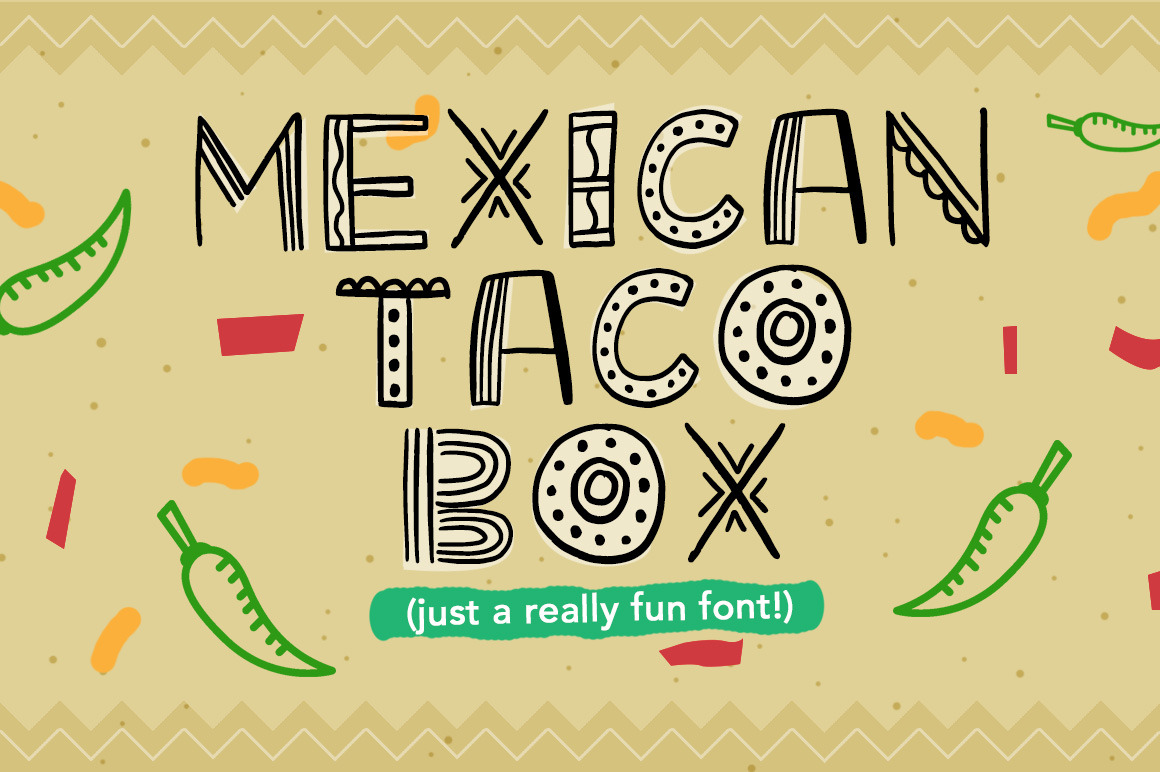
Mexican Taco Box Font
Mexican Taco Box just oozes with flavor and spice-- a fun, loud, and eccentric font that's perfect for adding that heat to your design projects: posters, magazines, food recipes, party invitations, and all other things that need this fun display type!
- All uppercase
- All lowercase
- Numerals and punctuation